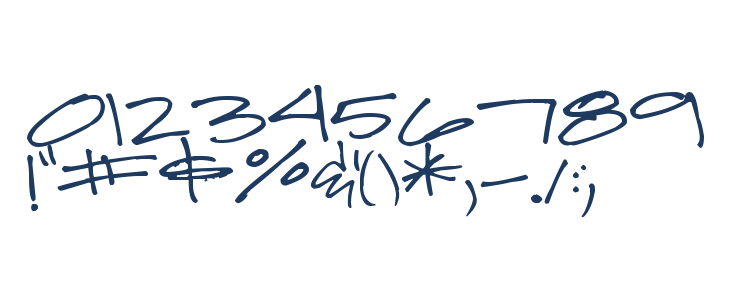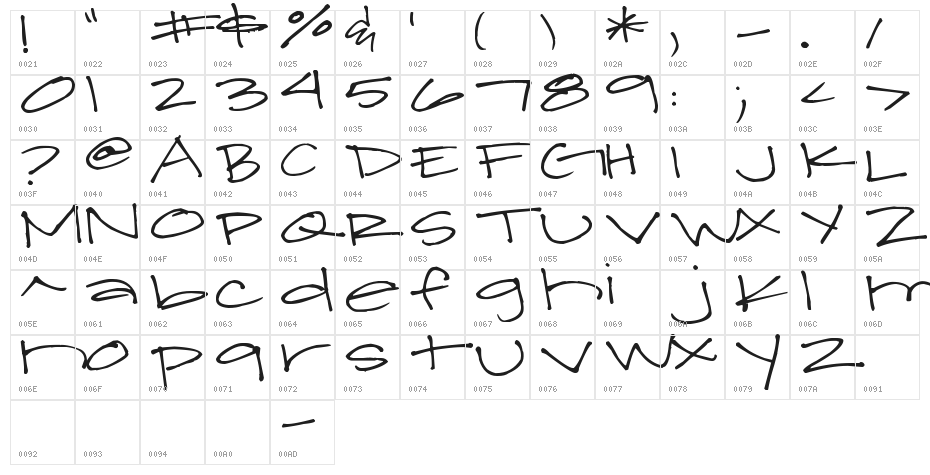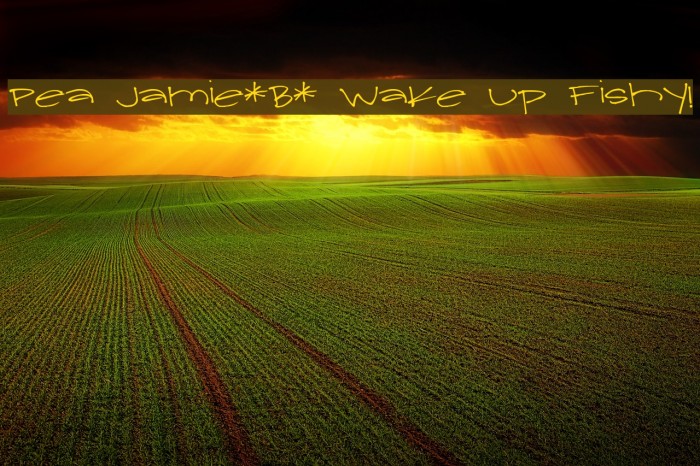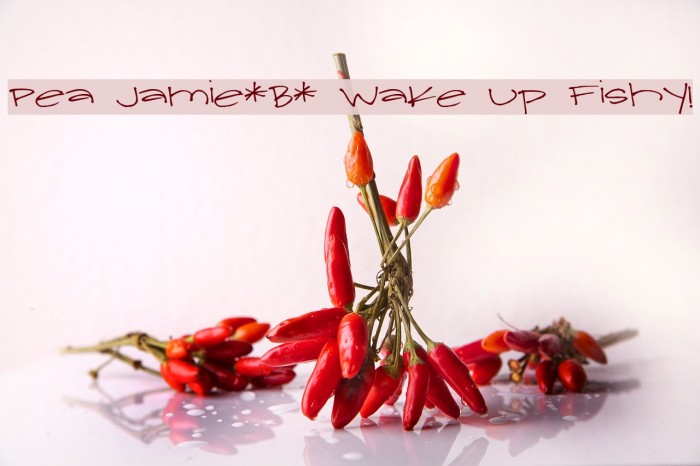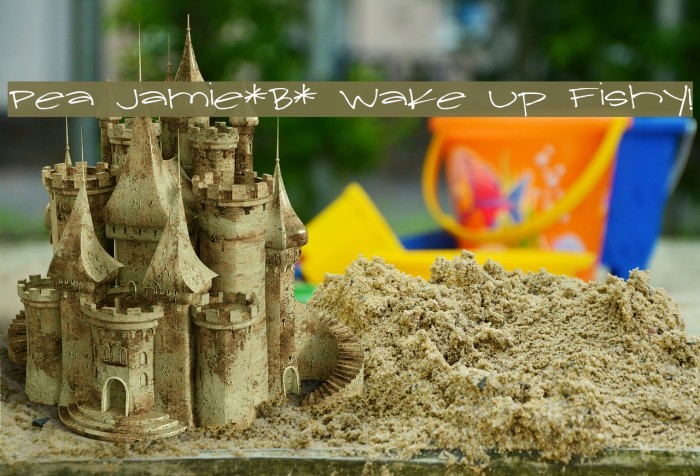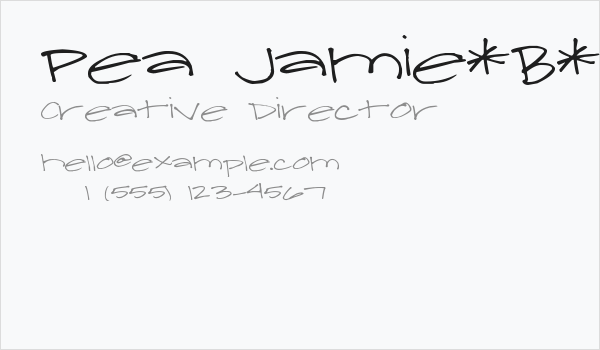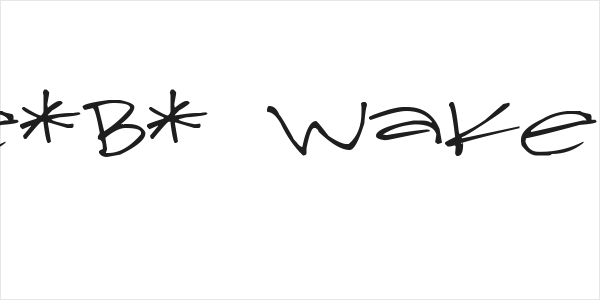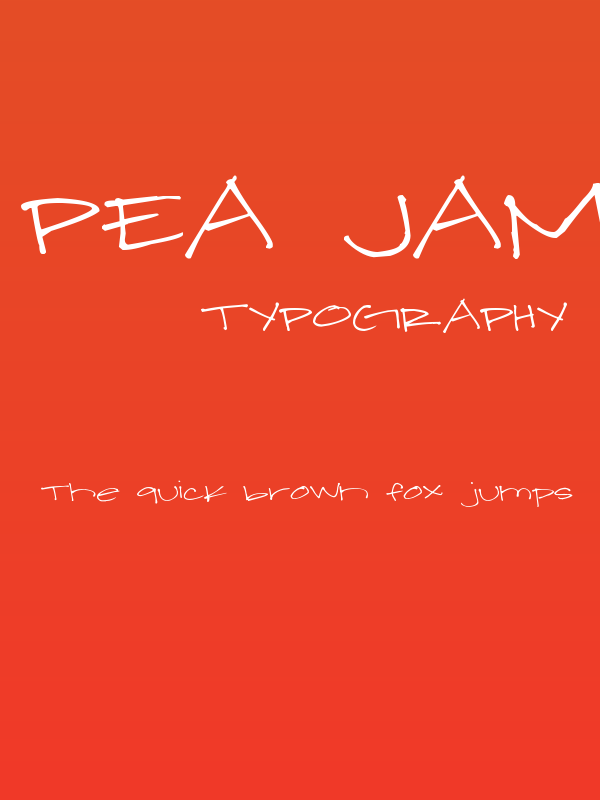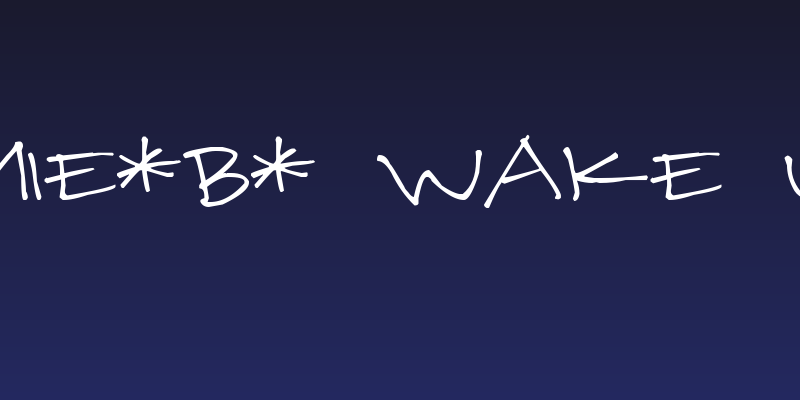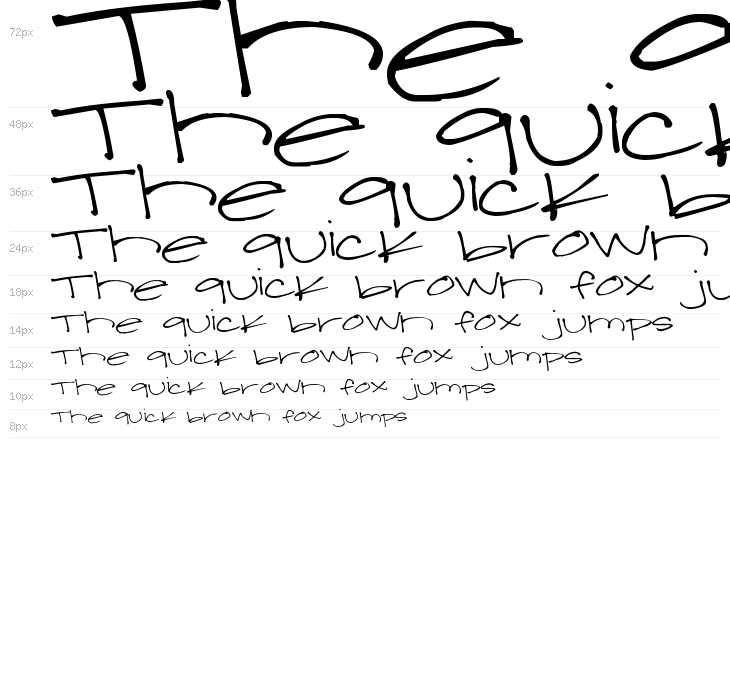
Pea Jamie*B* Wake Up Fishy! Font
Pea Jamie*B* Wake Up Fishy! Description
This font features a playful and casual handwritten style, characterized by its irregular strokes and slightly tilted letters. The uppercase and lowercase letters maintain a consistent flow, giving it a natural and spontaneous appearance. The numbers and special characters follow the same informal aesthetic, making it suitable for projects that require a personal touch. The strokes vary in thickness, adding to the dynamic and lively feel of the font. Its overall appearance is approachable and friendly, making it ideal for creative and informal applications.
| Use Case | Headlines, Logos, Informal text |
| Proposed Projects | Great for personal notes, invitations, children's books, and creative branding projects. |